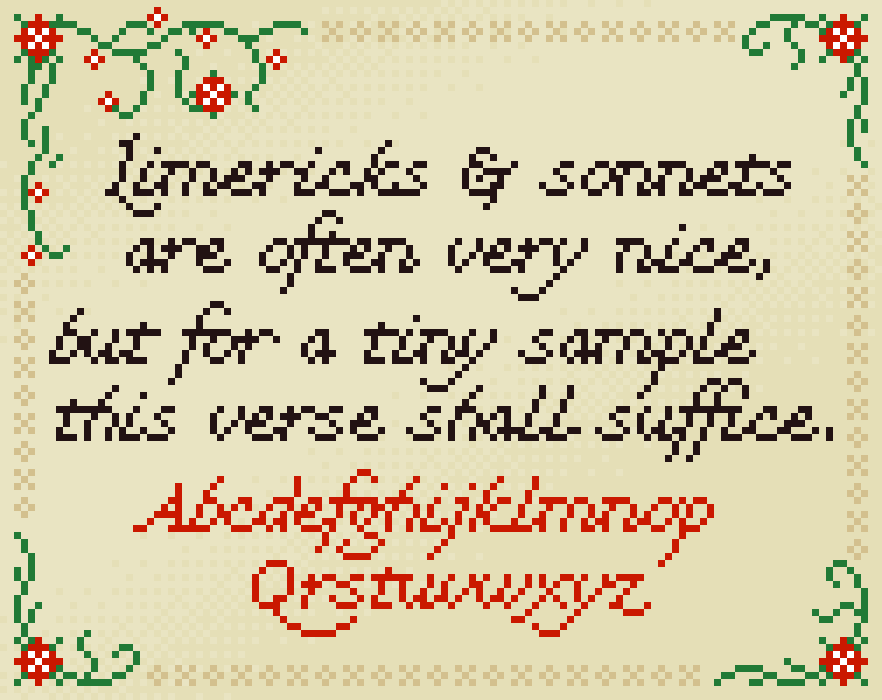
Niccolo font
Niccolo is inspired by Italian humanist hands of the 1600s, the inspiration for what became today's italic typefaces. It has an x-height of 5 pixels, but the swoopy ascenders and descenders bring it to a total height of 16 pixels.